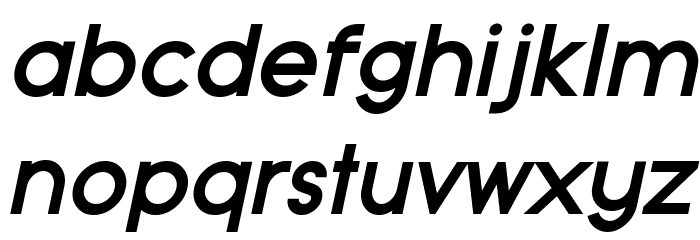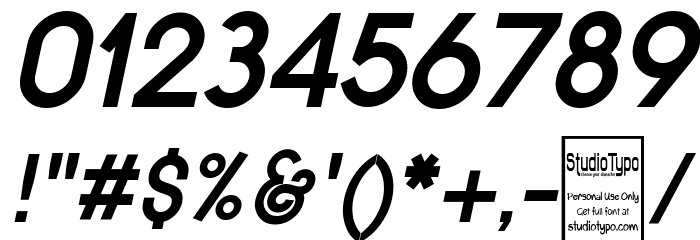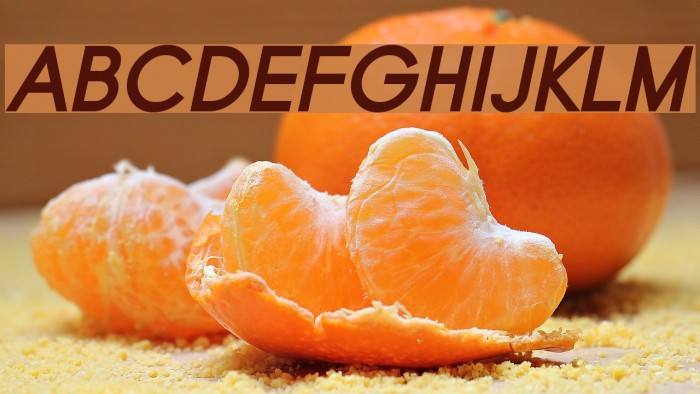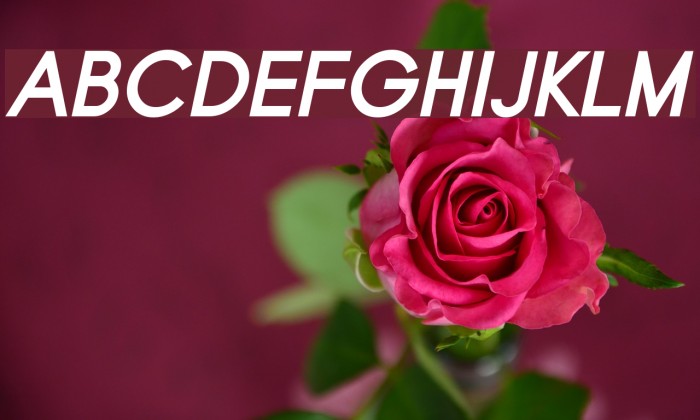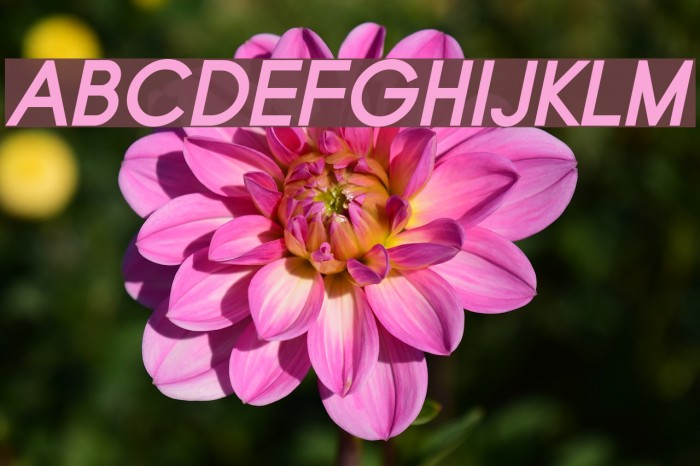
Typo Grotesk Bold Italic Font
This typeface features a bold and italicized style, characterized by its clean and modern appearance. The letters are slightly slanted, giving a dynamic and forward-moving impression. The strokes are consistent in thickness, providing a uniform look across all characters. The uppercase and lowercase letters are well-proportioned, ensuring readability and balance. The numerals are clear and distinct, making them suitable for various applications. The special characters are designed with the same attention to detail, maintaining the overall aesthetic of the typeface.
A bold, italicized typeface with a modern and dynamic style.
- Proposed Projects: Ideal for branding, advertising, and editorial design where a modern and bold statement is needed.
- Category: Sans-Serif
- Use Case: Headlines, Logos, Branding